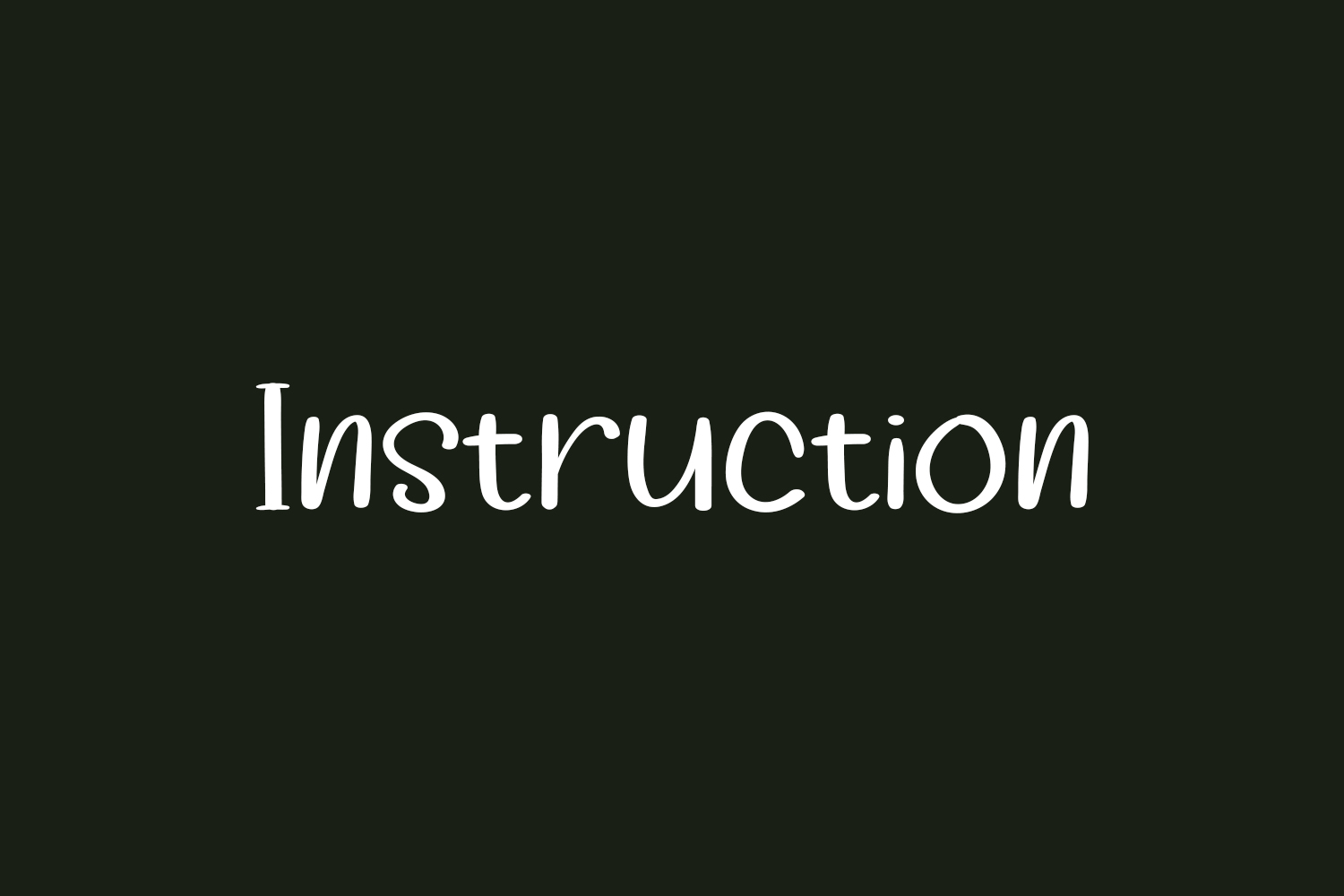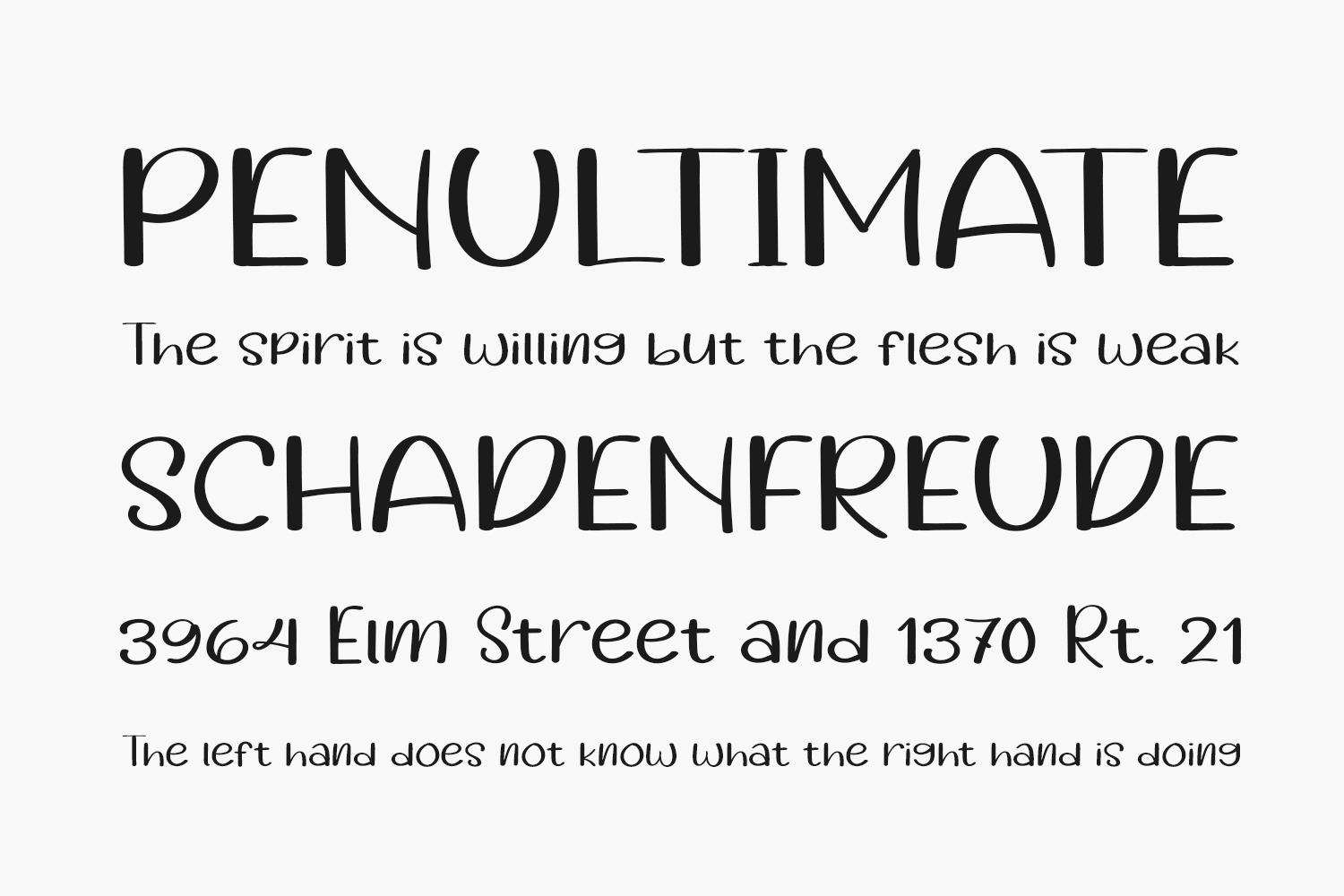
Instruction Free Font is a cool and fun display font. It can easily be matched to an incredibly large set of projects, so add it to your creative ideas and notice how it makes them stand out. Instruction Free Font was designed by Luluk Surotul and is free for personal use only. Please purchase the full version for commercial use.